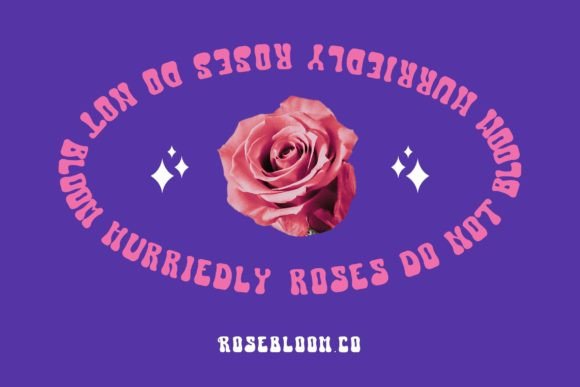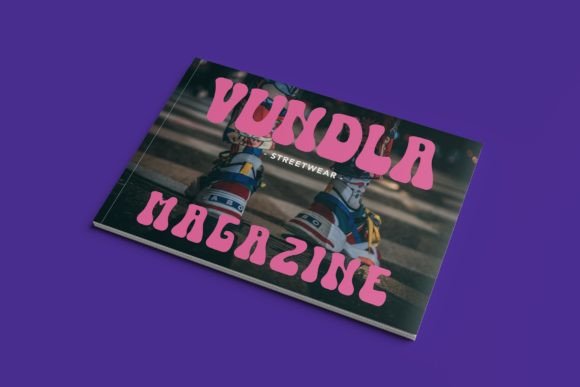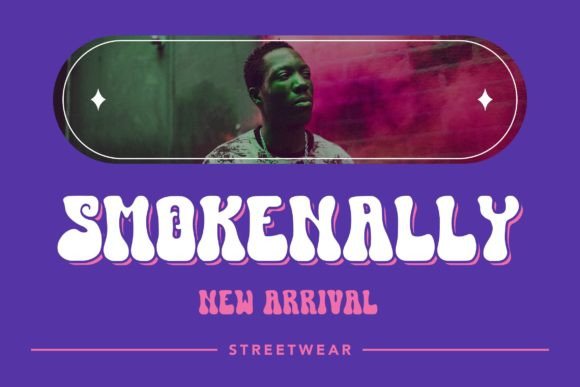
Introduction to Flying Soul Font
Flying Soul – Groovy Retro Display Font with distinctive handwritten characters perfect for branding projects, logos, wedding designs, media posts, advertisements, product packaging, product designs, labels, photography, watermarks, invitations, stationery, and any project that needs cool typography.
Key Features of Flying Soul Font
Why Choose Flying Soul Font?
Flying Soul Font offers exceptional quality and versatility, making it a valuable addition to your design toolkit. Whether you’re creating for personal projects or commercial use, Flying Soul Font delivers professional results.